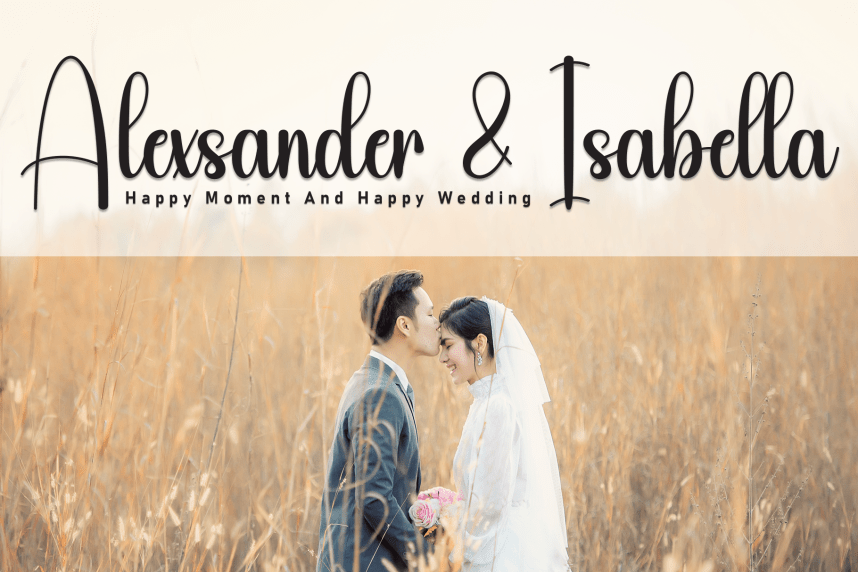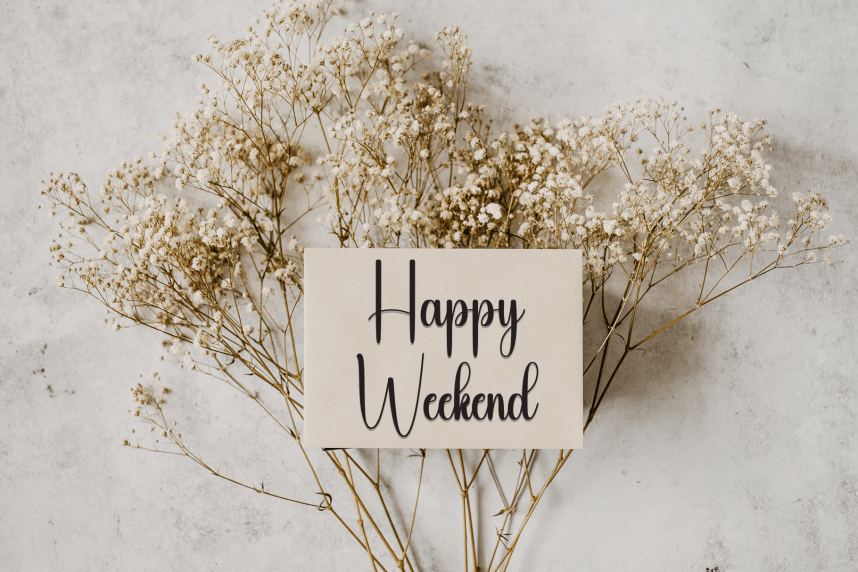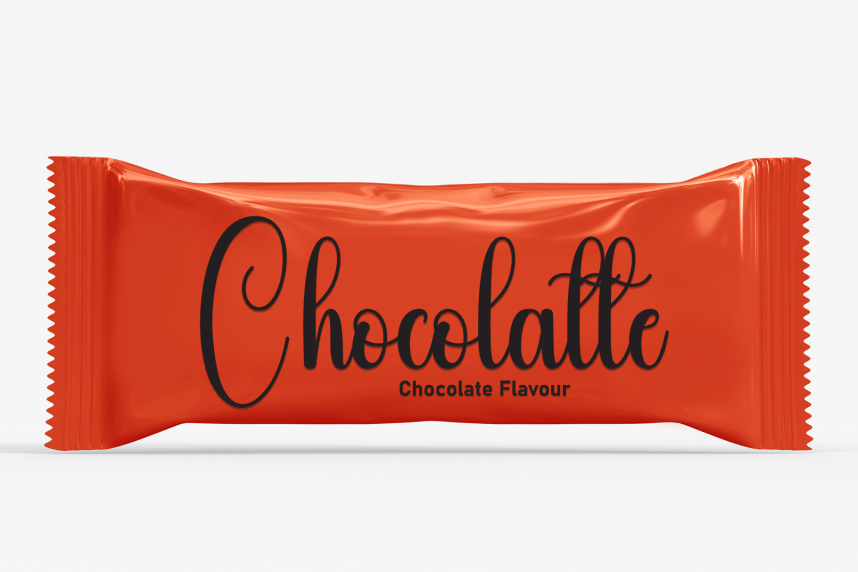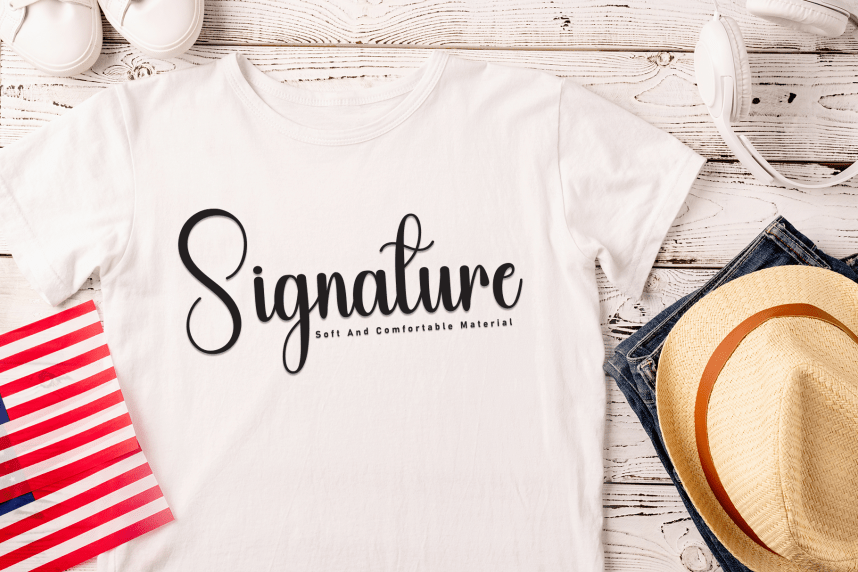
Chubby – New Style Handwritten Font
Chubby – New Style Handwritten Font is a sweet and friendly handwritten display font. Cute and fun, this font is ideal for writing wedding invitations, cards, or any other design that might need a playful touch!